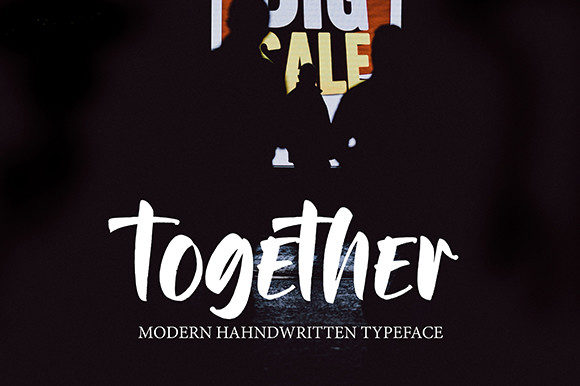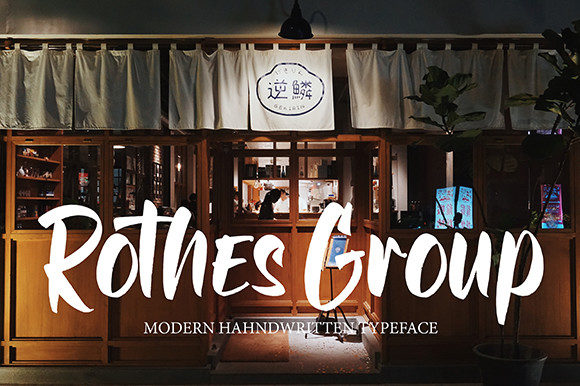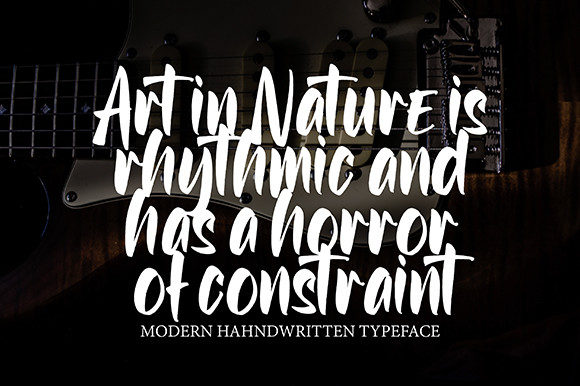
About Ofwhite Font
Ofwhite is a cool, brushed and trendy handwritten font. This font reads as strong, confident, and dynamic and can add tons of stylish character to your designs.